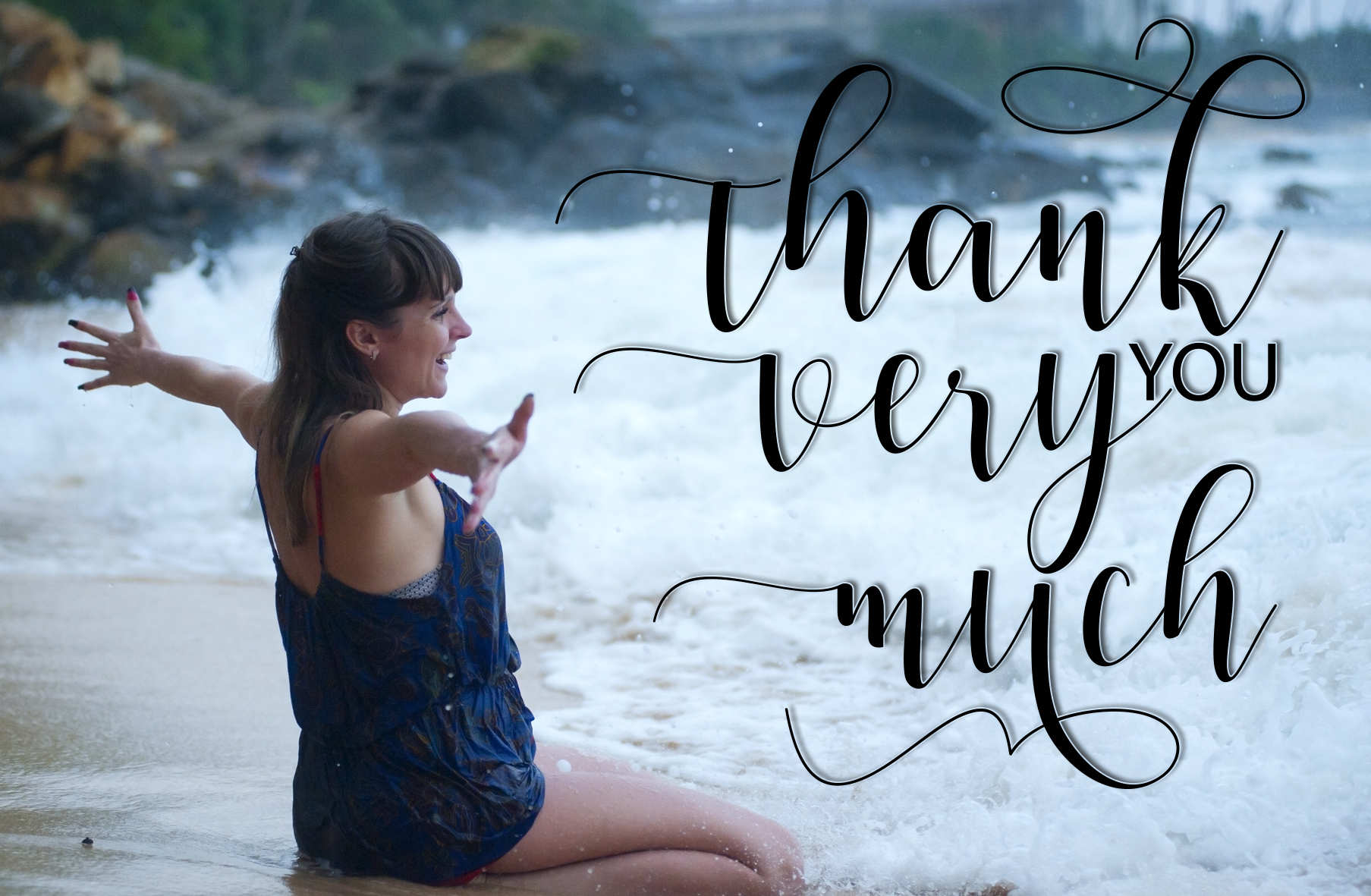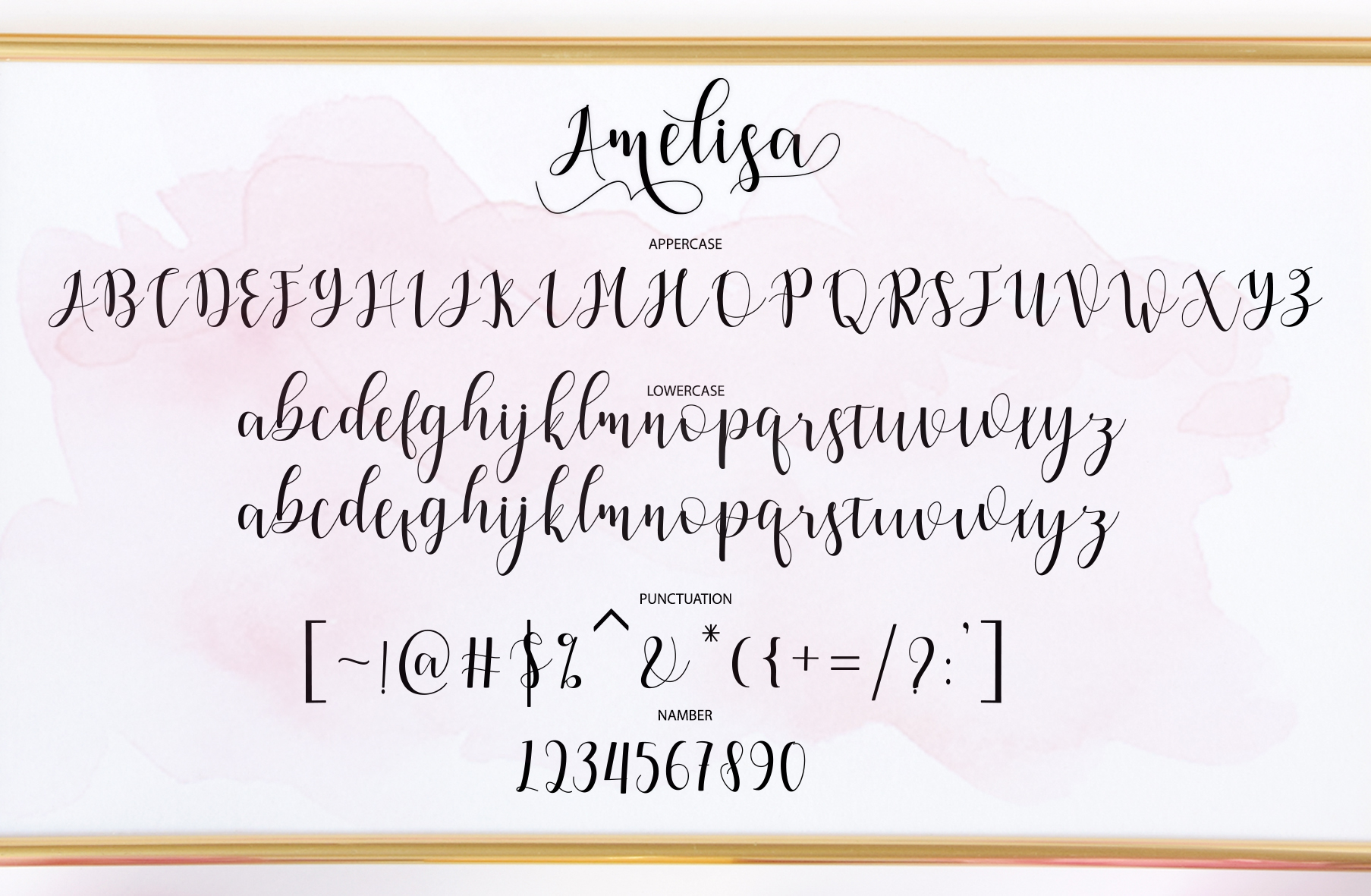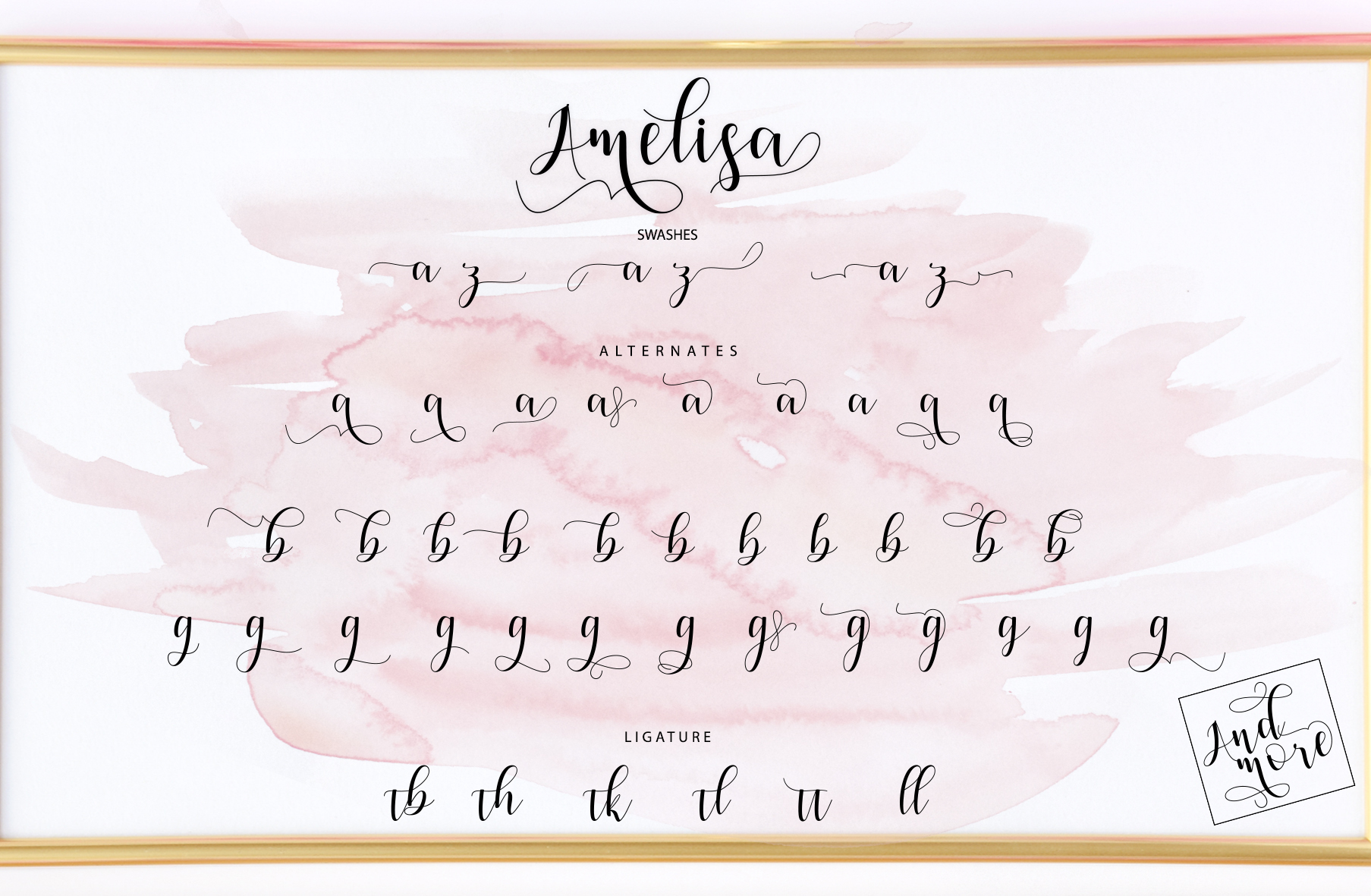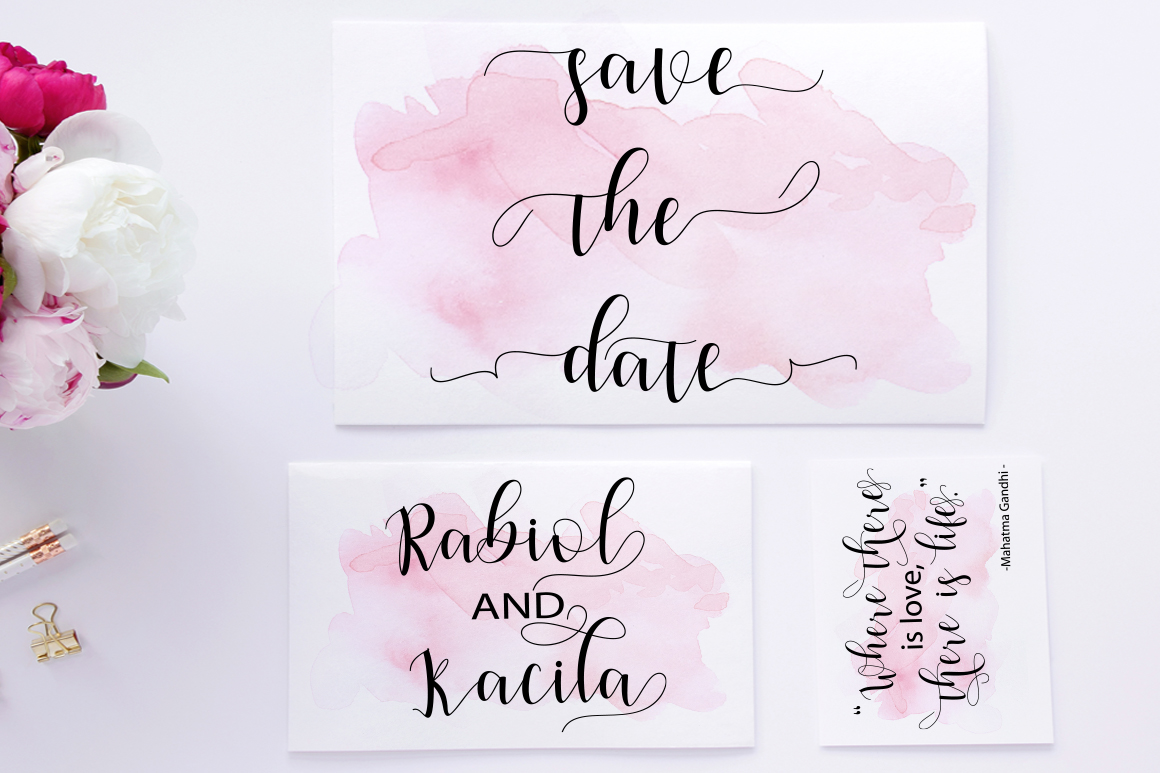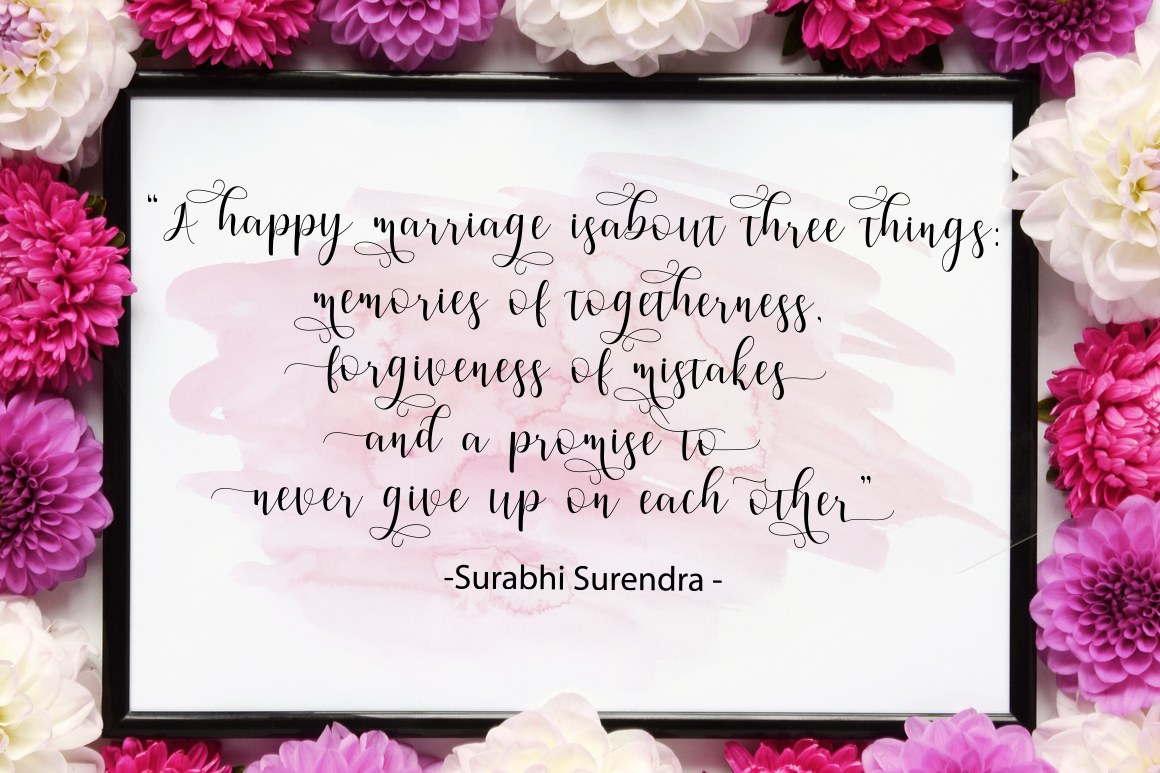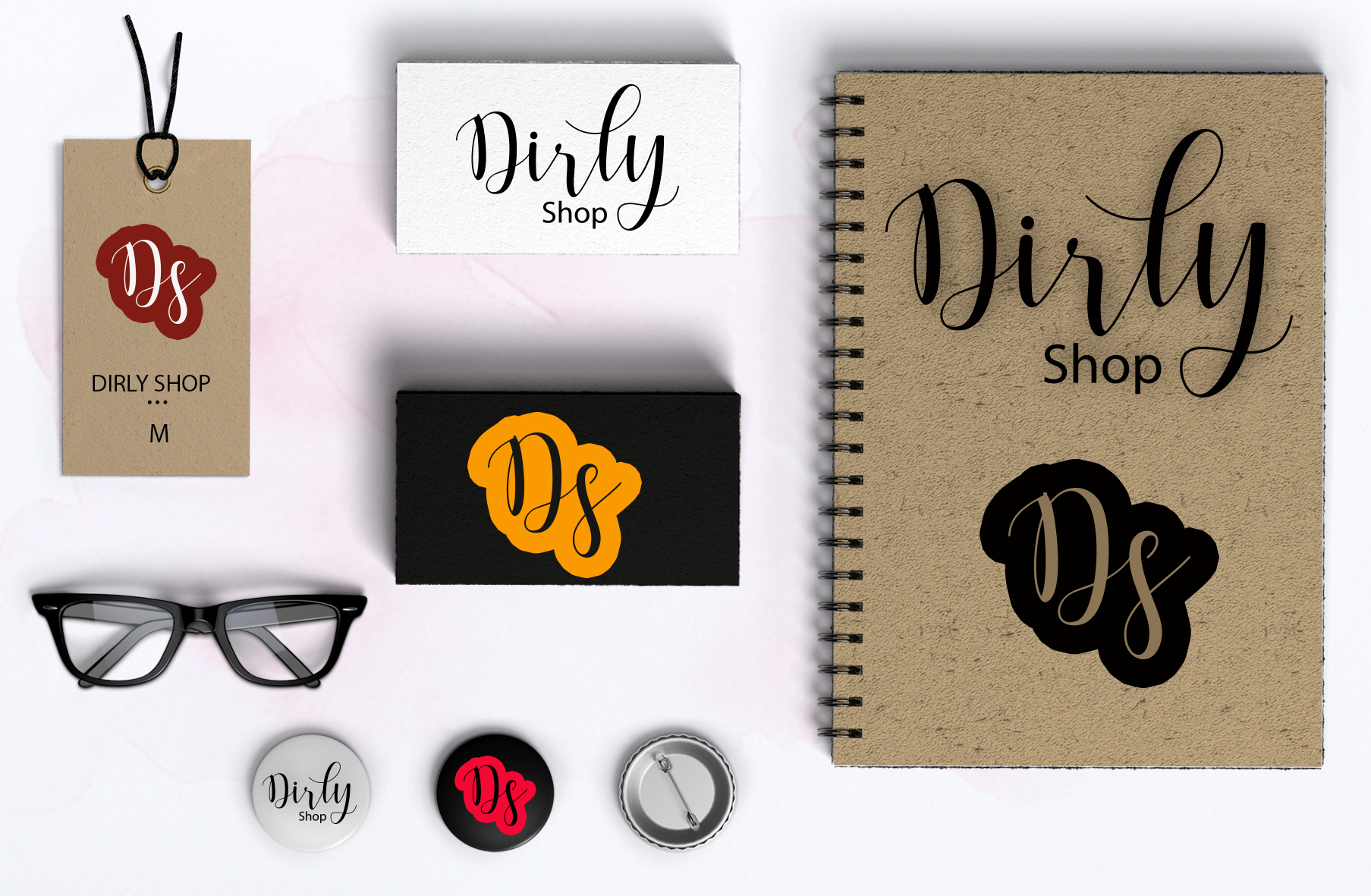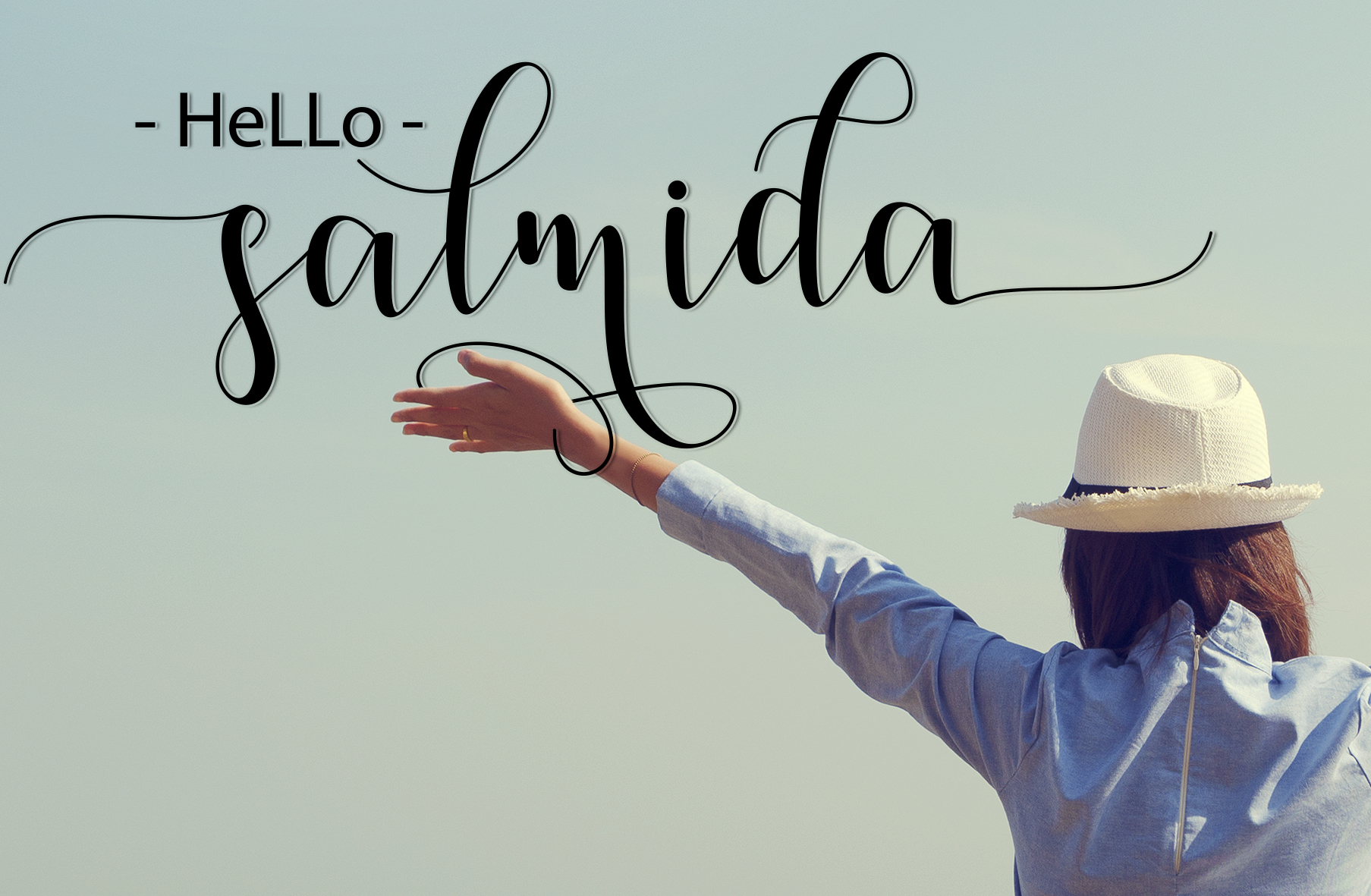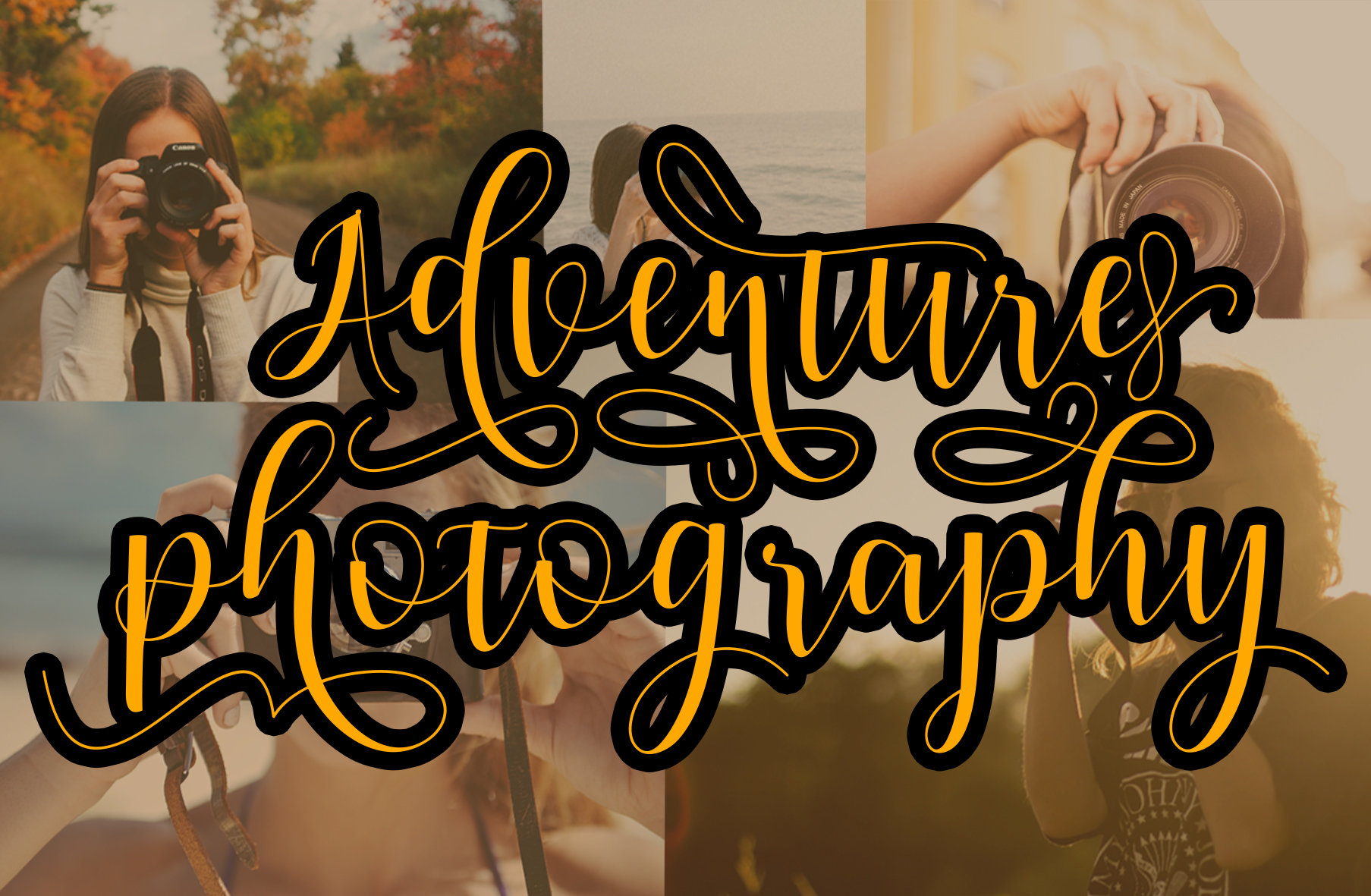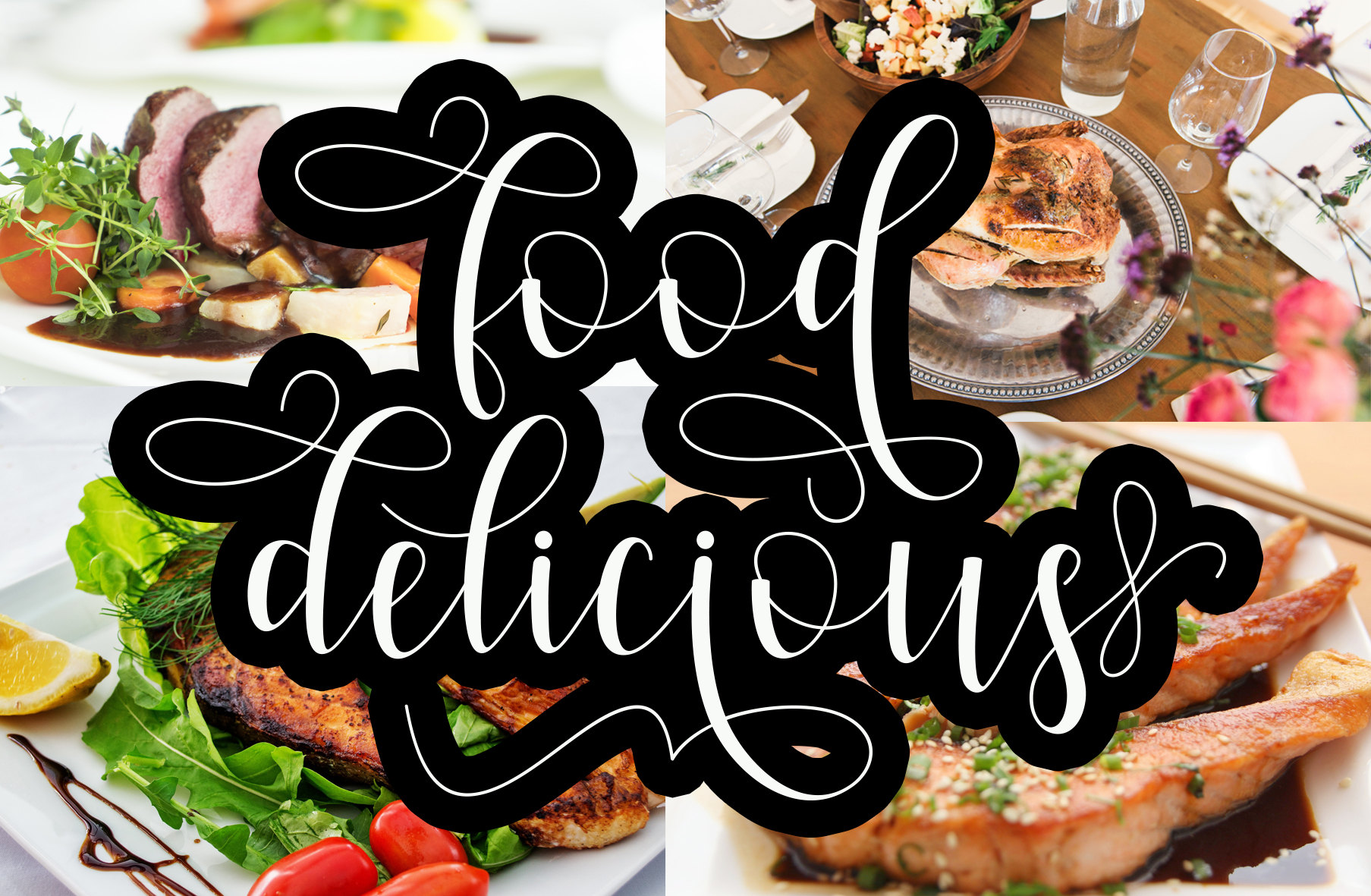
Amelisa Script Font
About Amelisa Script Font
Amelisa is a beautiful and fresh font, perfectly in time for Spring! This handmade calligraphy font is a great way to give some naturalness and charm to your digital designs, and looks phenomenal on print collateral and assets.